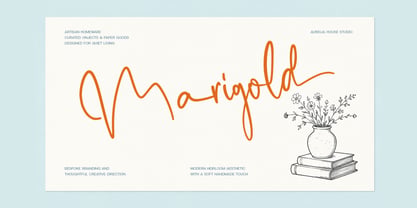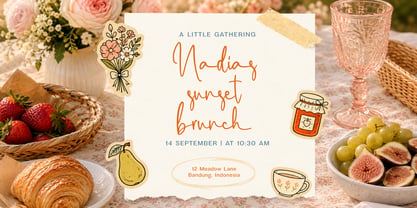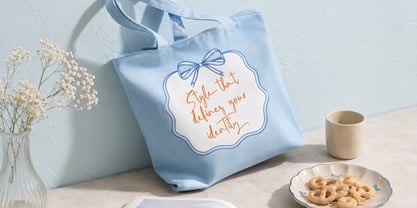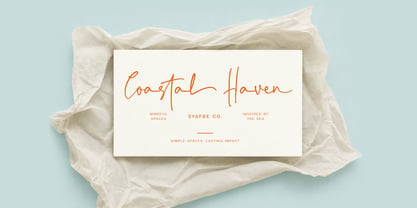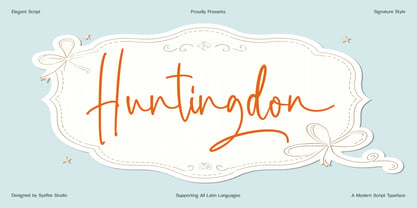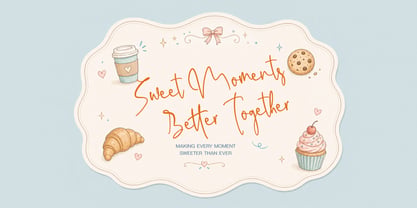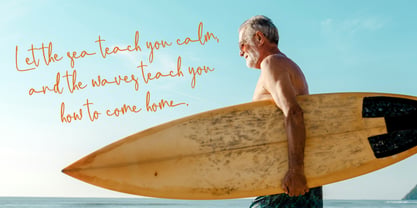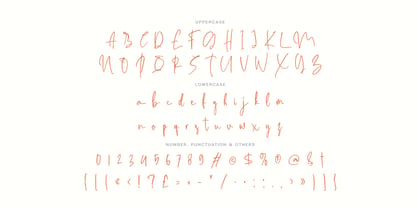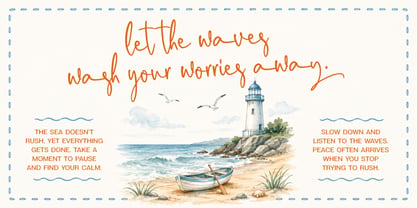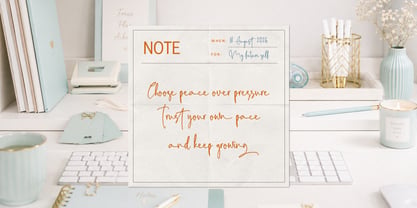
Huntingdon
by Syafbe
The Huntingdon Font Family was designed by Syafwan Mus and published by Syafbe. Huntingdon contains 1 styles. More about this family
Huntingdon: of Modern Simplicity and Classic Elegance
Huntingdon is an elegant script typeface designed to capture the beauty of timeless handwritten signatures with a modern luxurious touch. Featuring smooth flowing strokes, refined curves, and a natural handwritten rhythm, this font brings a sophisticated, romantic, and exclusive feel to every design. Its graceful character makes Huntingdon the perfect choice for creating memorable visual identities with a premium handcrafted impression.
Perfect for luxury branding, wedding invitations, fashion labels, beauty products, packaging, logos, and editorial designs, Huntingdon transforms simple words into captivating works of art. With its stylish signature aesthetic and support for all Latin languages, this typeface allows designers to create elegant, personal, and unforgettable designs that stand out with confidence and class.
Designers: Syafwan Mus
Foundry: Syafbe